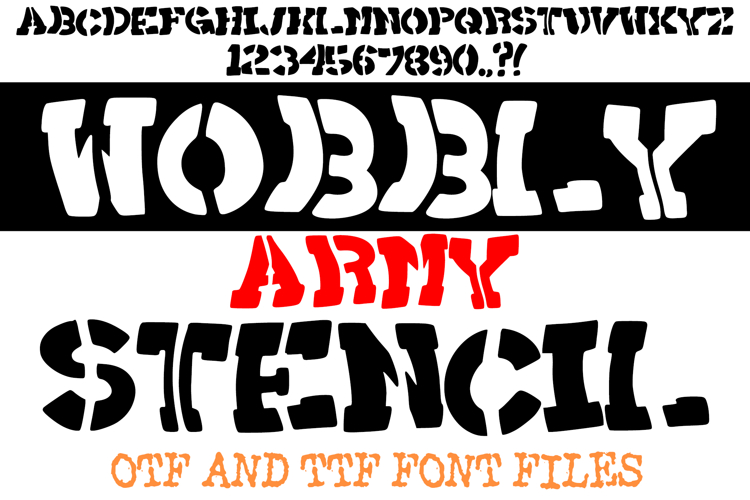
Wobbly Army Stencil Font is a bold and eye-catching display typeface that blends classic military stencil style with a quirky, uneven twist. Its rugged yet playful design makes it perfect for posters, t-shirts, packaging, survival gear, sports graphics, and creative projects that need both strength and personality. With its unique wobbly cuts and powerful stencil look, this font is ideal for headlines, logos, and signage. Includes OTF and TTF files for easy use in all major design software.